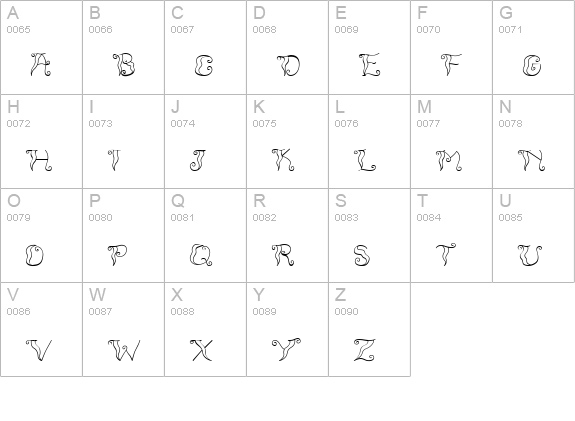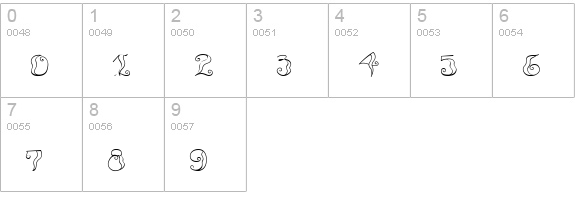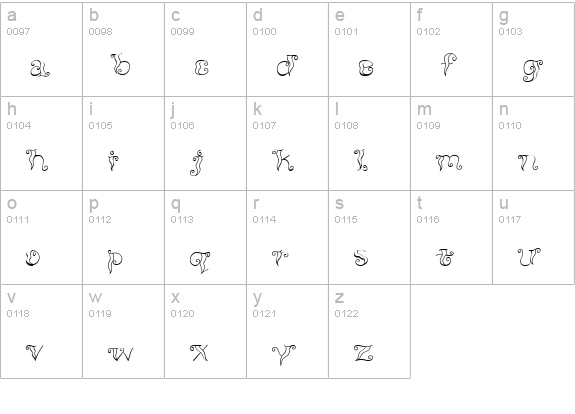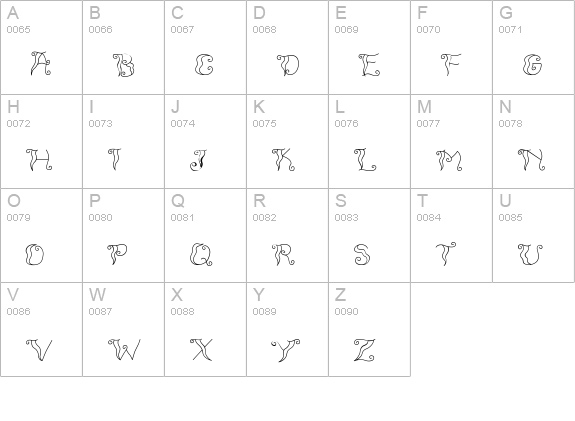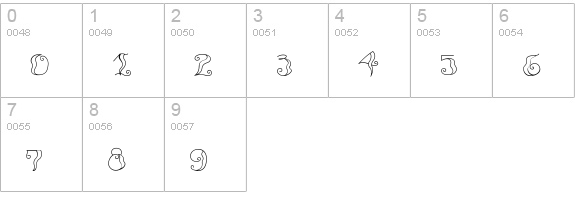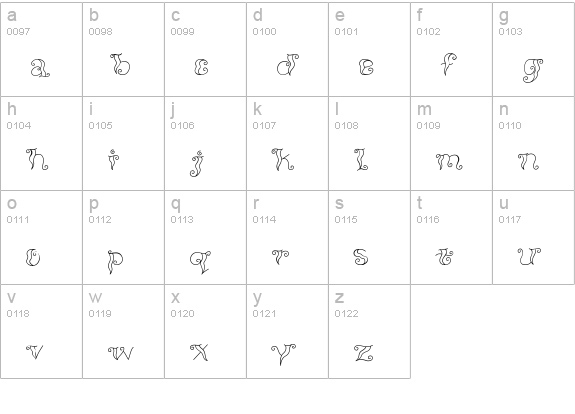
Introducing CK Funky Wave font, a playful and vibrant typeface that will add a fun and energetic touch to your designs. This font is perfect for projects that require a modern and quirky look, such as posters, invitations, and branding materials. With its unique character shapes and wavy lines, CK Funky Wave is sure to make your text stand out. The best part? CK Funky Wave font is available for free download at FontsMarket.com. Yes, you read that right – this eye-catching font can be yours at no cost! Whether you're a designer looking to spice up your creations or simply a font enthusiast searching for something fresh, CK Funky Wave is the perfect choice. So don't miss out on this fantastic opportunity to add a touch of funkiness to your projects with CK Funky Wave font. Download it today and let your creativity flow!